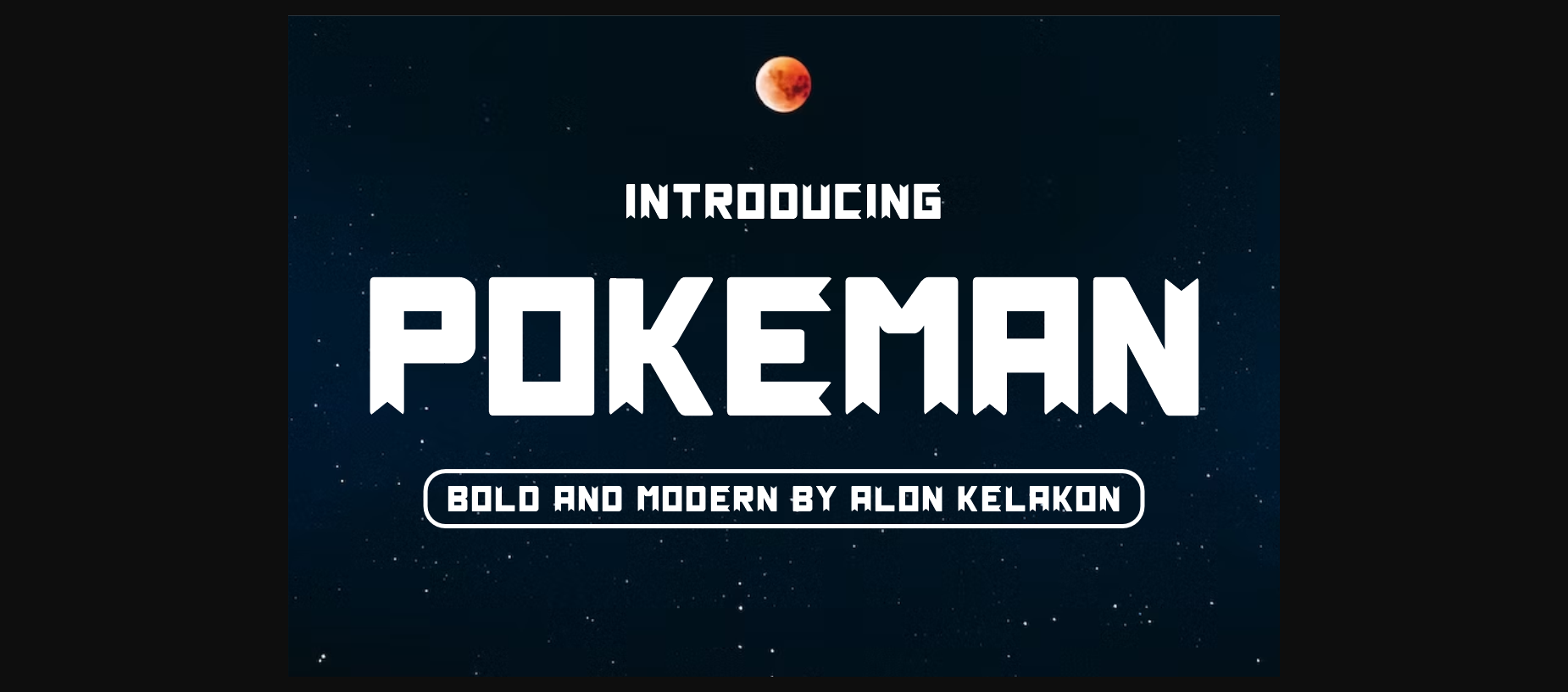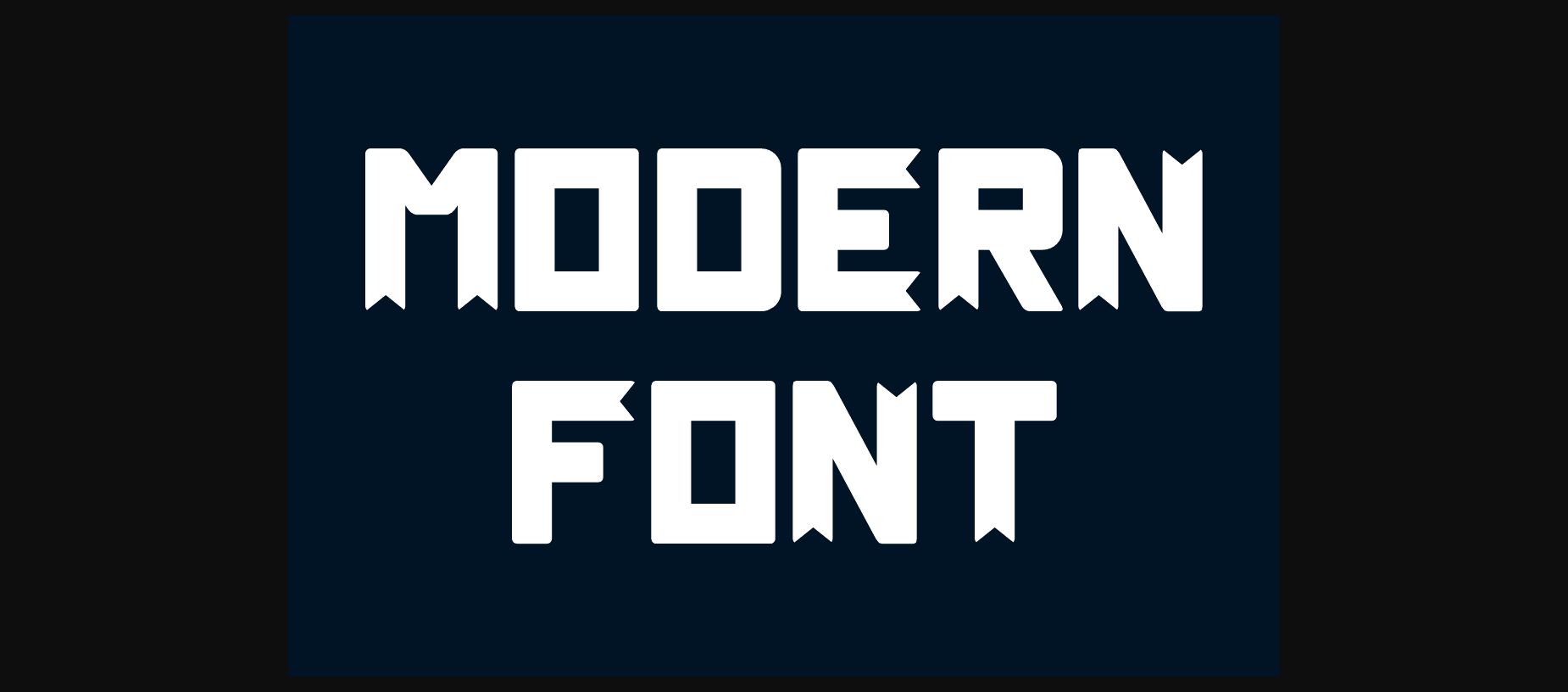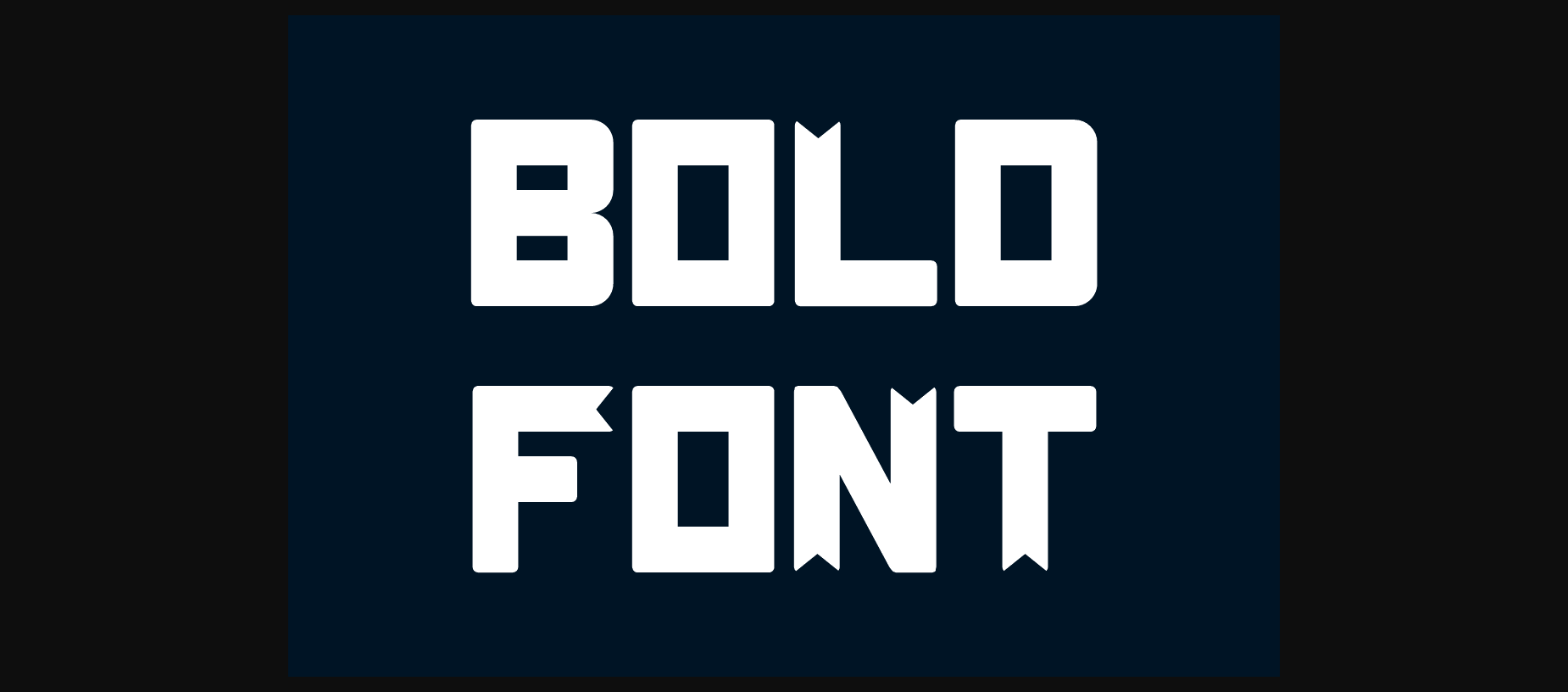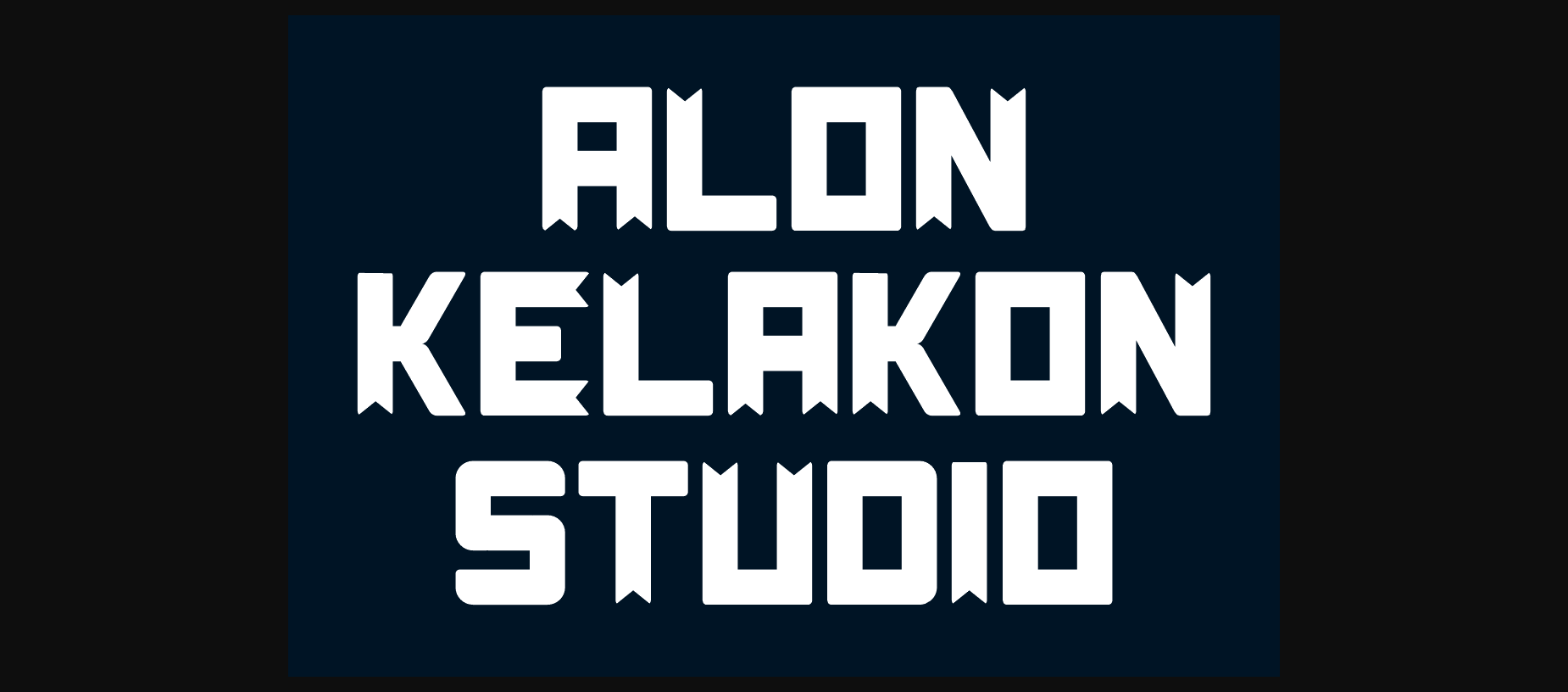
About Pokeman Font
Pokeman is a bold and assertive sans serif font. It is perfect for use on billboards, social media, posters, business cards, web design and so much more.